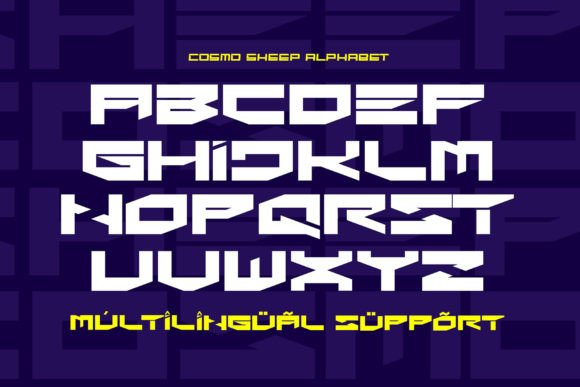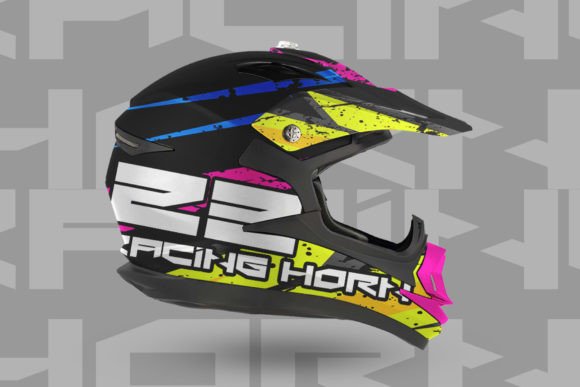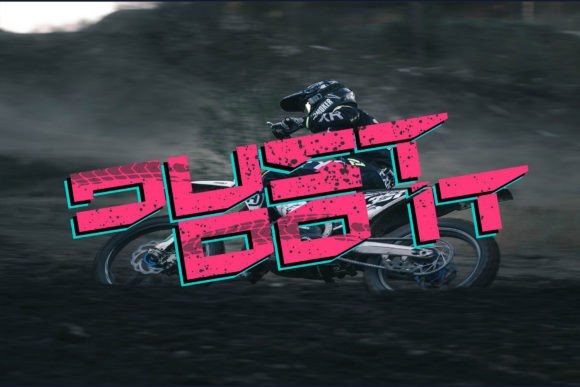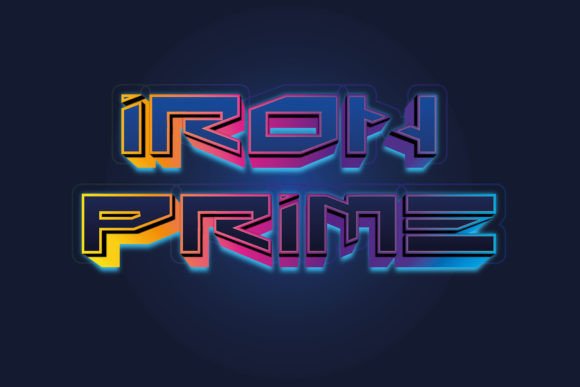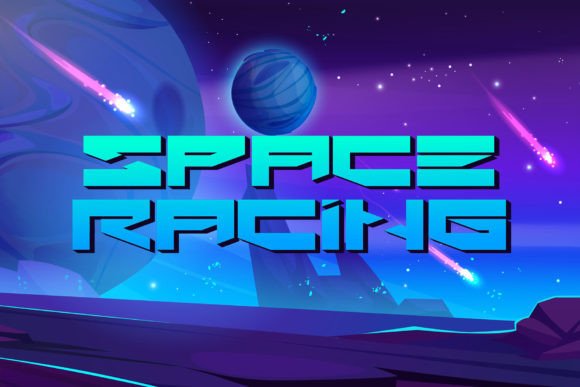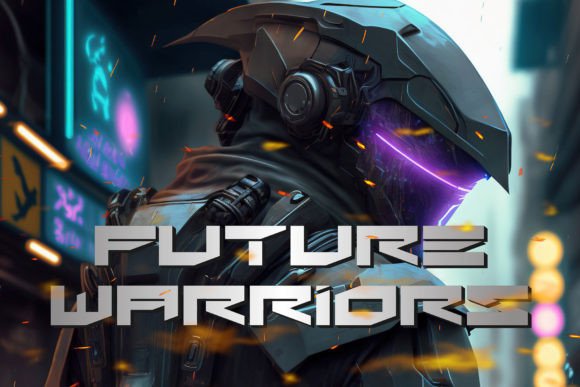
Introduction to Cosmo Sheep Font
Street Corner is a display font with a racing and futuristic theme, perfect for design projects such as sports jerseys, athletic shoes, helmets, and other sports-related products.
With its dynamic appearance, this font brings a sense of energy and movement to your designs The clean lines and modern feel of โStreet Cornerโ make it an excellent choice for projects that require a sleek and contemporary look.
Key Features of Cosmo Sheep Font
Why Choose Cosmo Sheep Font?